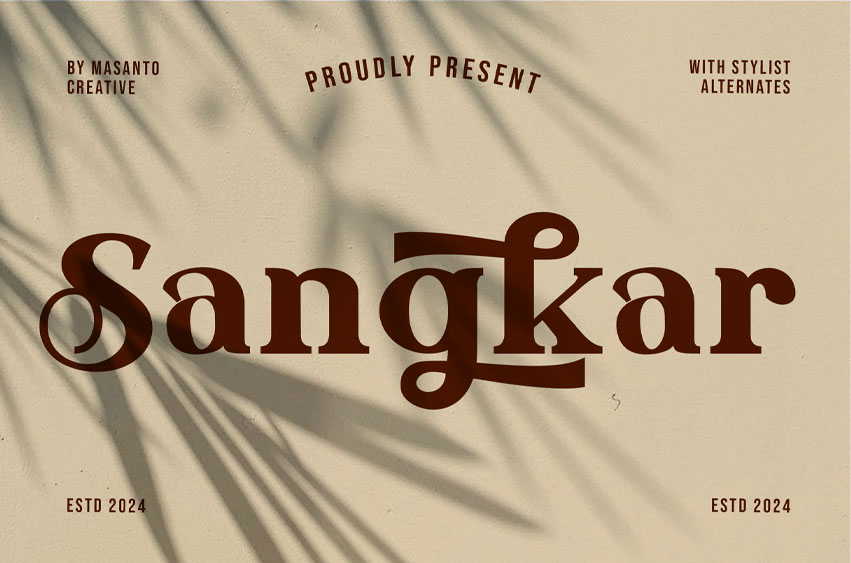
Sangkar Font
Sangkar Font is a retro bold display typeface featuring thick strokes, playful curves, and vintage-inspired letterforms. Designed to capture attention, it works well in posters, headlines, signage, logos, product packaging, and branding projects. Its strong presence and nostalgic feel make it ideal for creative compositions that need a bold and dynamic typographic style. The font includes uppercase and lowercase characters, numerals, punctuation, and multilingual support.
• Ligature & Stylistic alternate